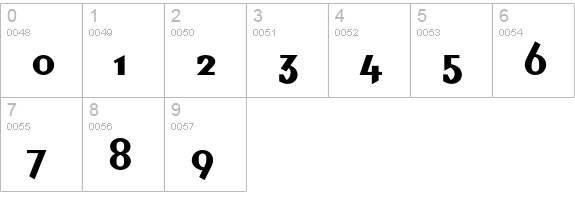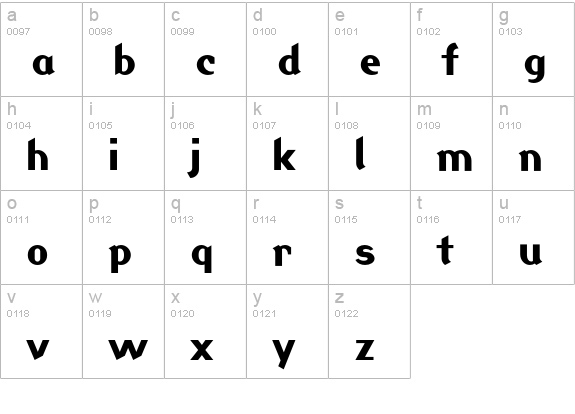
Jackdaw font is a stunningly unique typeface that effortlessly combines elegance and quirkiness. Its intricate and whimsical design sets it apart from other fonts, making it a truly standout choice for any creative project. Whether you're designing a logo, creating eye-catching headlines, or crafting artistic typography, Jackdaw font is sure to captivate your audience. What makes Jackdaw font even more appealing is the fact that it is free. Yes, you read that right! This incredible font can be downloaded for free at FontsMarket.com. So, not only do you get access to a one-of-a-kind typeface that will make your designs come alive, but you also get to enjoy the benefits of it being freely available. It's a win-win situation! With its sleek and modern lines, Jackdaw font brings a touch of sophistication to any project. The sharp angles and delicate details make it ideal for both digital and print designs. Whether you're working on a website, a magazine layout, or a promotional banner, Jackdaw font will add a touch of elegance and professionalism that will leave a lasting impression. The versatility of Jackdaw font is another reason why it has become a favorite among designers. It can be used for a wide range of purposes, from branding and advertising to personal projects and invitations. Its legibility and readability ensure that your message is conveyed clearly, while its unique style adds a touch of personality and creativity. So why wait? Download Jackdaw font today and let your creativity soar. With its captivating design and the fact that it is freely available at FontsMarket.com, there's no reason not to add this gem to your font collection. Get ready to impress your audience and elevate your designs with the enchanting beauty of Jackdaw font.